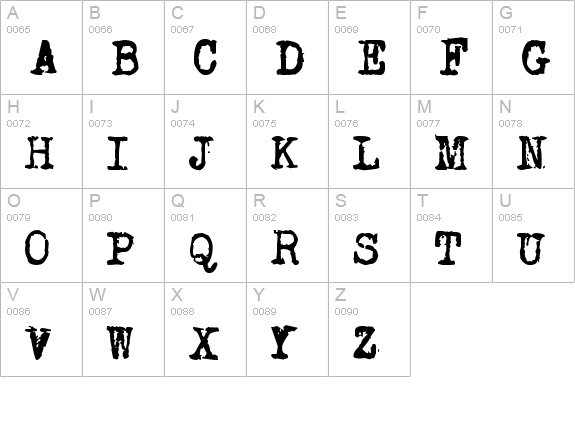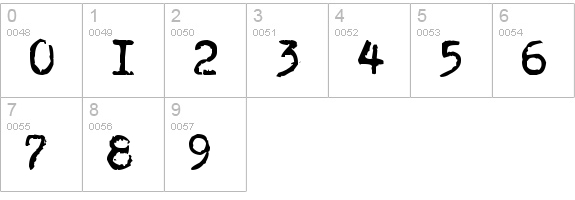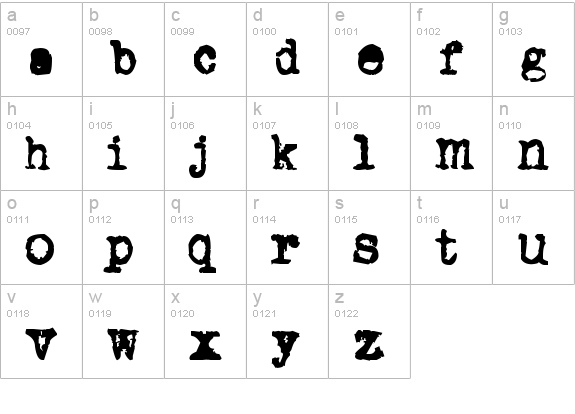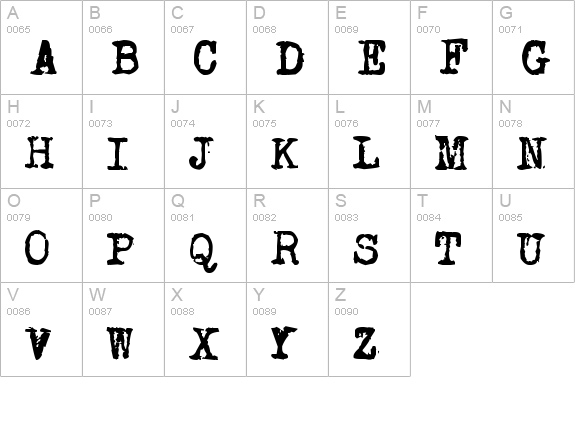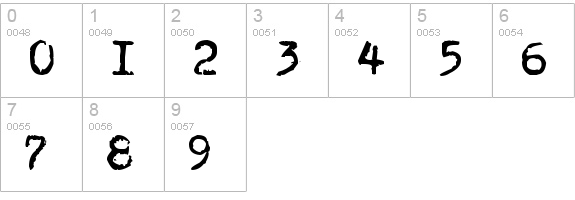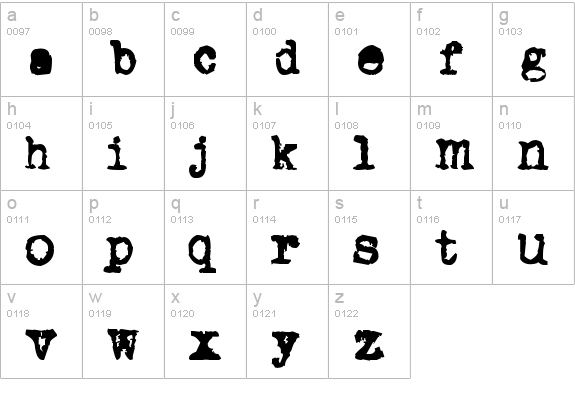
Old typewriter Font Details
The Old Typewriter font exudes vintage charm and timeless elegance, bringing a touch of nostalgia to any design project. With its classic typewriter-inspired style, this font is perfect for adding a touch of old-world sophistication to your creations. The carefully crafted characters and unique imperfections capture the essence of traditional typewritten text, making it a versatile choice for a wide range of applications. Best of all, this Old Typewriter font is completely free to download at FontsMarket.com. Whether you're working on a retro-themed project or simply want to add a touch of vintage flair to your designs, this font is a fantastic choice. Download it today and let the Old Typewriter font transport you back to a bygone era of elegance and simplicity.